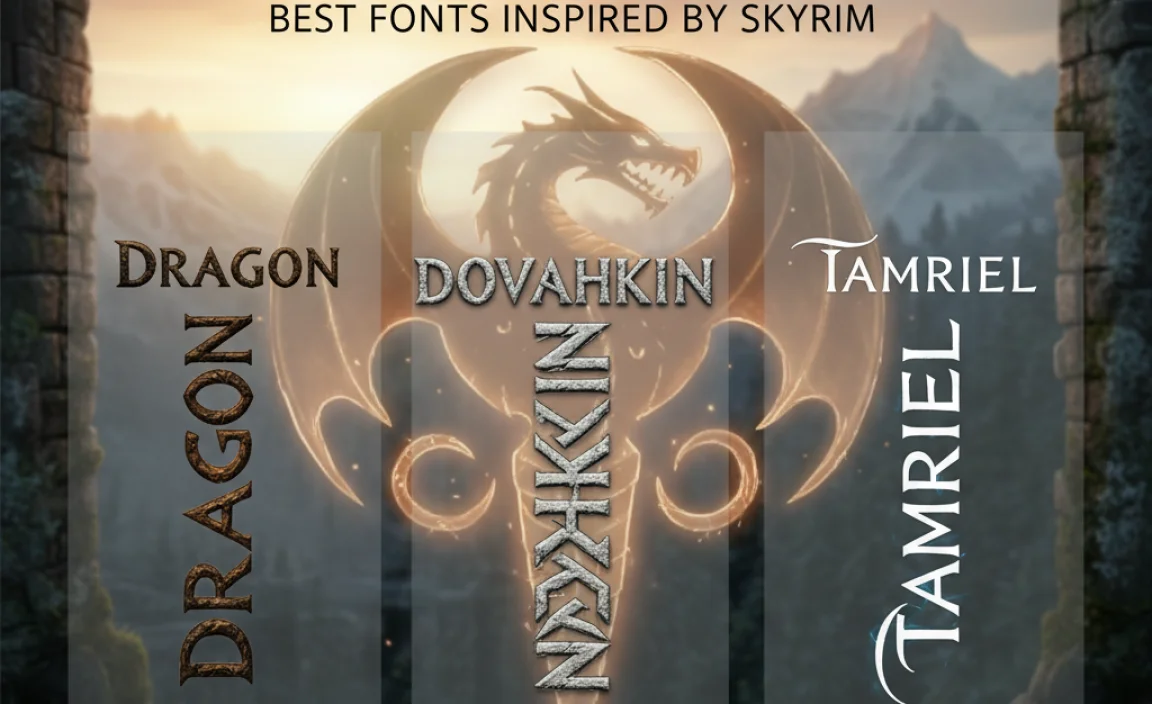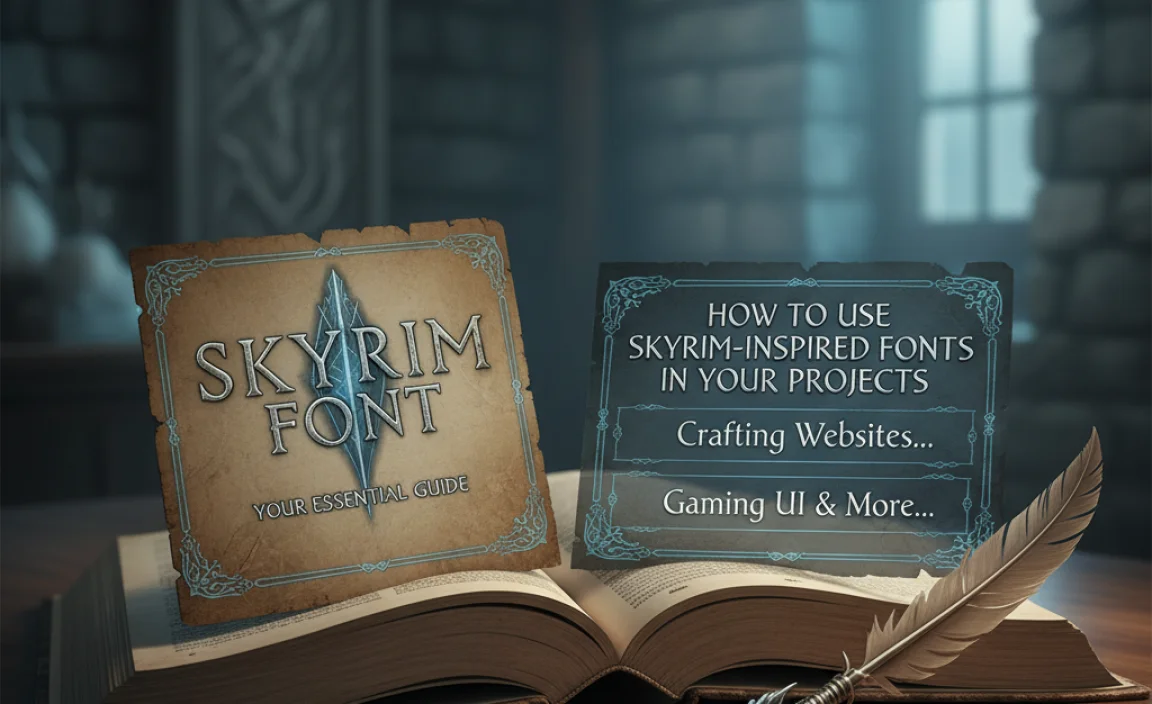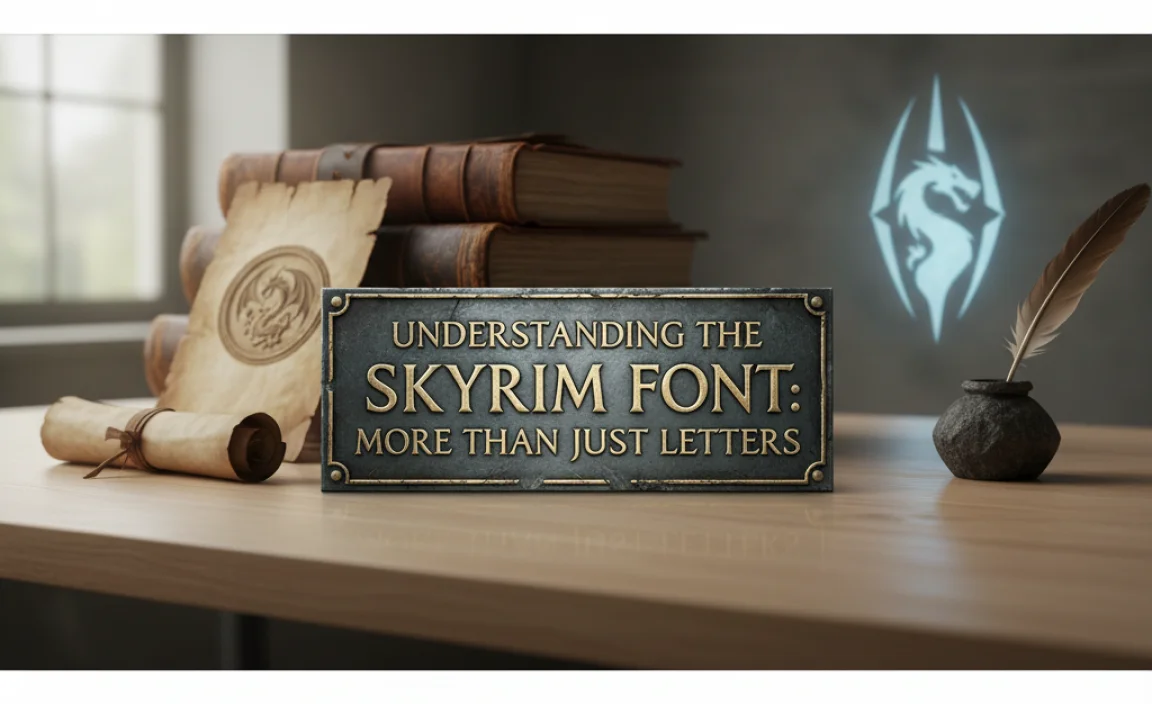
Skyrim Font: Your Essential Guide
Discover the iconic font used in Skyrim and learn how to find and use similar styles for your own creative projects. This guide offers practical tips for identifying, downloading, and implementing fonts inspired by the epic fantasy world of The Elder Scrolls V: Skyrim, empowering you to bring a touch of Tamriel to your designs.
Have you ever scrolled through game titles or seen some cool graphics and wondered, “What font is that?” If you’re a fan of The Elder Scrolls V: Skyrim, you’ve probably fallen in love with its distinct, ancient-looking text. It’s the kind of font that just screams adventure and magic! It can be a bit tricky to pinpoint the exact font, and even harder to know where to find it or how to use it. But don’t worry! We’re here to break it all down. We’ll explore the origins of the Skyrim font, show you how to find fonts that capture its essence, and guide you on using them like a pro. Let’s embark on this quest together!
Understanding the Skyrim Font: More Than Just Letters
The first thing to know is that the “Skyrim font” isn’t a single, universally named typeface used everywhere. Instead, it refers to a style that evokes a sense of ancient Nordic lore, runic inscriptions, and grand fantasy. The primary font associated with the game’s logo and in-game text is often cited as Trajan Pro. However, the in-game UI and various other textual elements feature a custom-designed font that draws inspiration from historical scripts and fantasy aesthetics.
The beauty of the Skyrim font style lies in its ability to transport you to another world. It’s robust, a little bit rugged, and carries a weight of history and legend. This makes it incredibly desirable for anyone looking to add that epic fantasy feel to their own work.
Where Did the Skyrim Font Come From?
The primary inspiration for many of the fonts that capture the Skyrim feel, especially the logo, is drawn from Trajan. This classic Roman typeface, designed by Carol Twomey based on the inscription on Trajan’s Column in Rome, is known for its majestic and authoritative feel. Game developers often use established fonts like Trajan or its derivatives because they convey a sense of grandeur, history, and importance.
For the in-game text and UI, Bethesda Game Studios likely commissioned custom typography or heavily modified existing fonts to create a unique identity for Skyrim. These custom fonts aim to harmonize with the game’s visual style, its Norse-inspired architecture, and its lore. They often incorporate elements reminiscent of runes, ancient carvings, and weathered stone.
Key Characteristics of the Skyrim Font Aesthetic
When you think of the Skyrim font, what comes to mind? It’s likely a combination of these visual cues:
Serif: Many of these fonts have prominent serifs, which are the small decorative strokes at the ends of the main strokes of a letter. These serifs often have a slightly chiselled or aged appearance, like they were carved into stone.
All Caps: The iconic logo and many in-game titles use capital letters exclusively, giving a sense of importance and stateliness.
Sturdy and Bold: The letters are generally thick and well-defined, conveying strength and permanence.
Slightly Irregular: Some fonts that mimic this style have subtle imperfections, making them feel hand-crafted or ancient, rather than perfectly uniform.
Majestic and Epic: The overall impression is one of grandeur, history, and epic fantasy.
These characteristics help build the immersive world of Skyrim, making the text feel like an integral part of the game’s visual identity.
Finding the “Skyrim Font”: Real Fonts and Close Relatives
While the exact custom fonts used in Skyrim are not typically available for public download, there are many excellent fonts that capture the same epic, ancient, and fantasy-inspired feel. Here’s how you can find them.
1. Trajan Pro (and its Relatives)
Trajan Pro is the closest you’ll get to the logo’s inspiration. It’s a widely recognized font that embodies that monumental Roman inscription style. You can find different versions and similar fonts across various font marketplaces.
Why it Works: Its strong, all-caps design and historical roots make it perfect for titles, logos, and headers that need a sense of legacy and power. Think of it as the foundation for “epic.”
2. Runes and Ancient Scripts
For a more direct nod to the runic alphabet elements sometimes seen in Skyrim’s lore, you can explore fonts inspired by runes. These can add an authentic, mysterious, and ancient touch.
Why it Works: These fonts are immediately evocative of magic, ancient civilizations, and hidden knowledge. They are great for accents, decorative elements, or specific in-game themed projects.
3. Fantasy and Display Fonts
Many independent font designers create “fantasy” or “display” fonts specifically designed for games, movies, and creative projects. These often capture the spirit of Skyrim without directly imitating it.